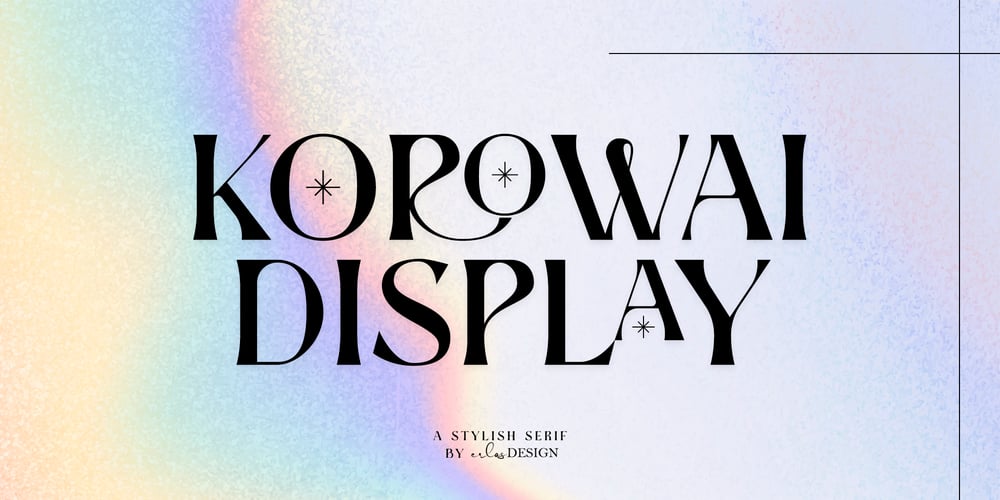
Korowai
Korowai font
Korowai Font Family was designed by Erlangga Suherman and published by ErlosDesign. Korowai contains 1 styles and family package options. KOROWAI – DISPLAY MODERN SERIF FONT by erlosDESIGNKOROWAI is a display serif font with modern style. It includes uppercase letters, numeral, ligatures, a large range of punctuation and also multilingual support. Perfects for poster, web design, magazine cover, album cover , branding and many more.